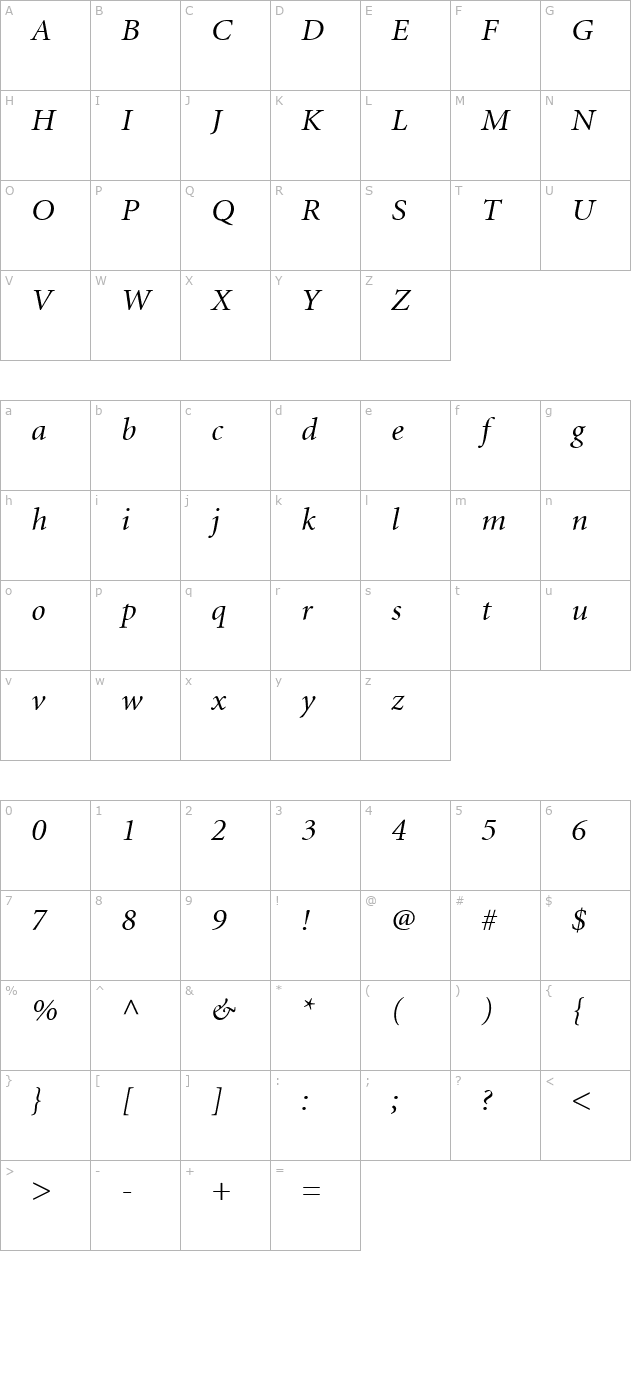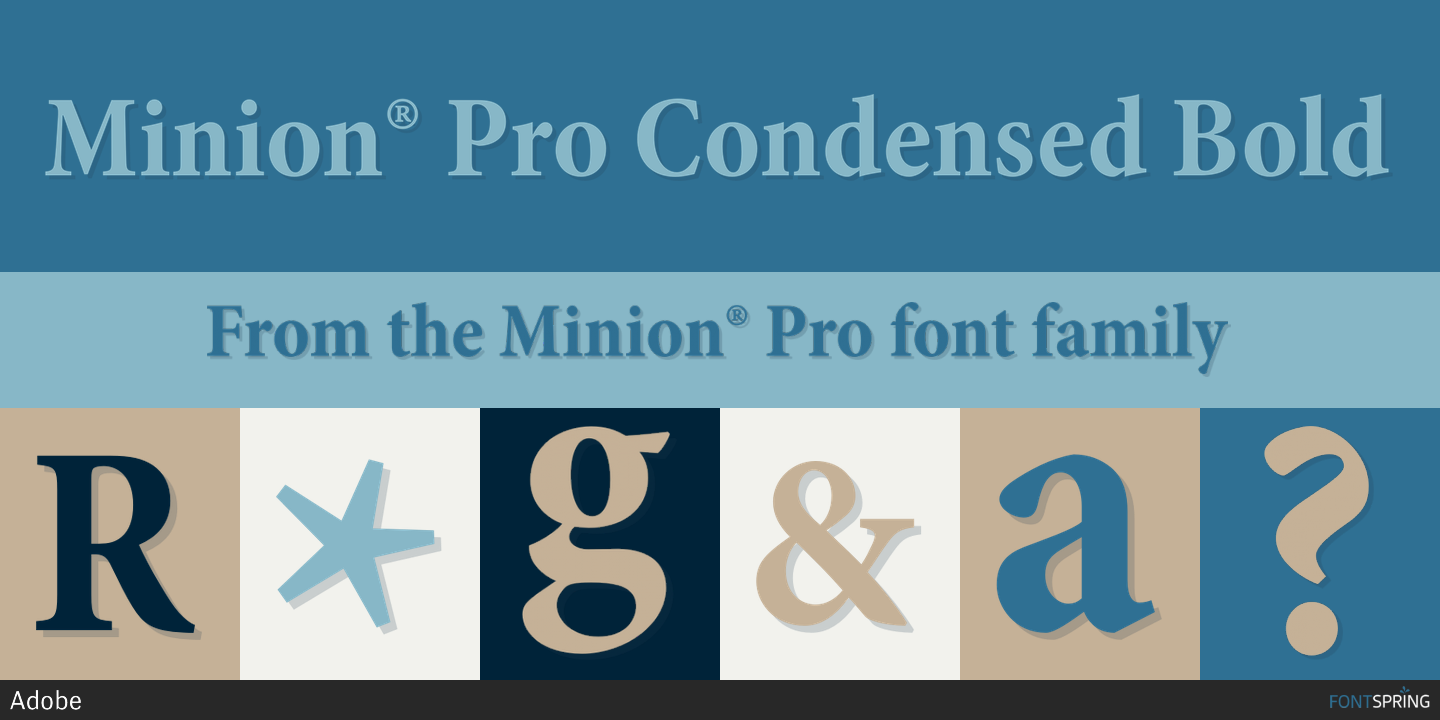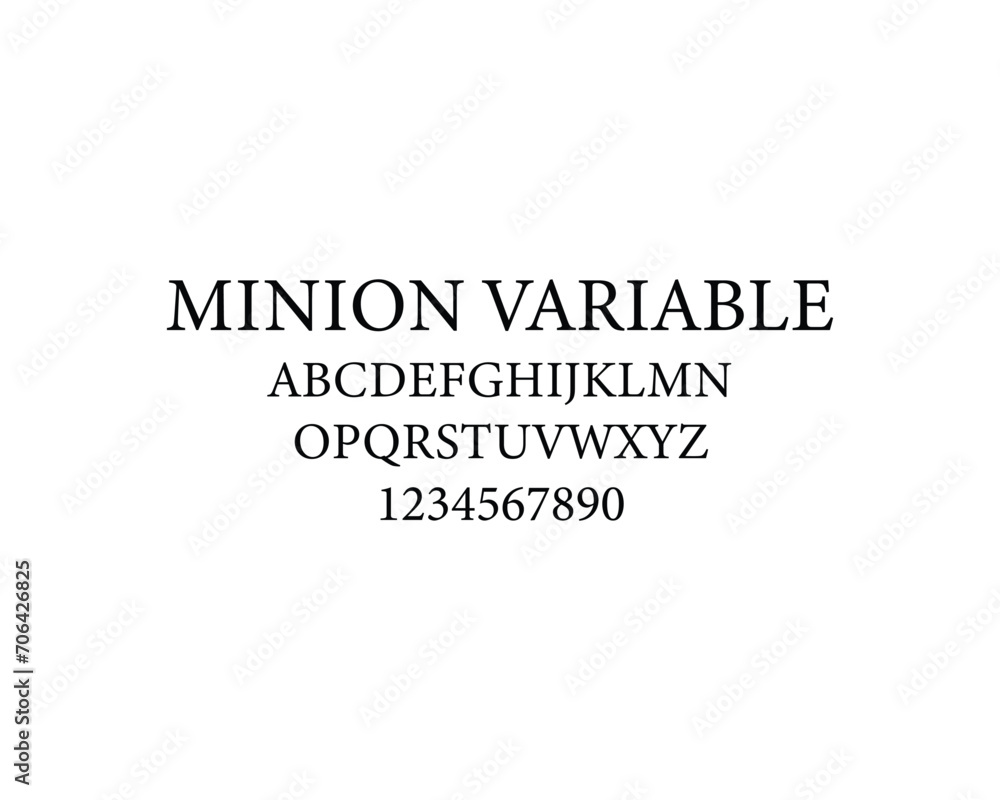
Minion Variable Concept Font - A serif typeface with 65 styles,. Find and try minion variable concept, a variable. Minion variable concept is a variable version of the classic minion 3 font. Here are some fonts similar to minion variable concept. Explore minion designed by robert slimbach at adobe fonts.
Minion variable concept is a variable version of the classic minion 3 font. Find and try minion variable concept, a variable. Here are some fonts similar to minion variable concept. Explore minion designed by robert slimbach at adobe fonts. A serif typeface with 65 styles,.
Find and try minion variable concept, a variable. A serif typeface with 65 styles,. Minion variable concept is a variable version of the classic minion 3 font. Here are some fonts similar to minion variable concept. Explore minion designed by robert slimbach at adobe fonts.
Here are some fonts similar to minion variable concept. A serif typeface with 65 styles,. Explore minion designed by robert slimbach at adobe fonts. Find and try minion variable concept, a variable. Minion variable concept is a variable version of the classic minion 3 font.
Minion variable concept is a variable version of the classic minion 3 font. Find and try minion variable concept, a variable. Explore minion designed by robert slimbach at adobe fonts. A serif typeface with 65 styles,. Here are some fonts similar to minion variable concept.
Explore minion designed by robert slimbach at adobe fonts. Find and try minion variable concept, a variable. Here are some fonts similar to minion variable concept. A serif typeface with 65 styles,. Minion variable concept is a variable version of the classic minion 3 font.
A serif typeface with 65 styles,. Here are some fonts similar to minion variable concept. Find and try minion variable concept, a variable. Minion variable concept is a variable version of the classic minion 3 font. Explore minion designed by robert slimbach at adobe fonts.
Here are some fonts similar to minion variable concept. Find and try minion variable concept, a variable. Minion variable concept is a variable version of the classic minion 3 font. Explore minion designed by robert slimbach at adobe fonts. A serif typeface with 65 styles,.
Find and try minion variable concept, a variable. A serif typeface with 65 styles,. Minion variable concept is a variable version of the classic minion 3 font. Explore minion designed by robert slimbach at adobe fonts. Here are some fonts similar to minion variable concept.
A serif typeface with 65 styles,. Minion variable concept is a variable version of the classic minion 3 font. Explore minion designed by robert slimbach at adobe fonts. Find and try minion variable concept, a variable. Here are some fonts similar to minion variable concept.
Minion variable concept is a variable version of the classic minion 3 font. A serif typeface with 65 styles,. Explore minion designed by robert slimbach at adobe fonts. Find and try minion variable concept, a variable. Here are some fonts similar to minion variable concept.
Minion variable concept is a variable version of the classic minion 3 font. Here are some fonts similar to minion variable concept. A serif typeface with 65 styles,. Find and try minion variable concept, a variable. Explore minion designed by robert slimbach at adobe fonts.
Explore minion designed by robert slimbach at adobe fonts. Minion variable concept is a variable version of the classic minion 3 font. Find and try minion variable concept, a variable. Here are some fonts similar to minion variable concept. A serif typeface with 65 styles,.
Explore Minion Designed By Robert Slimbach At Adobe Fonts.
Find and try minion variable concept, a variable. Here are some fonts similar to minion variable concept. A serif typeface with 65 styles,. Minion variable concept is a variable version of the classic minion 3 font.